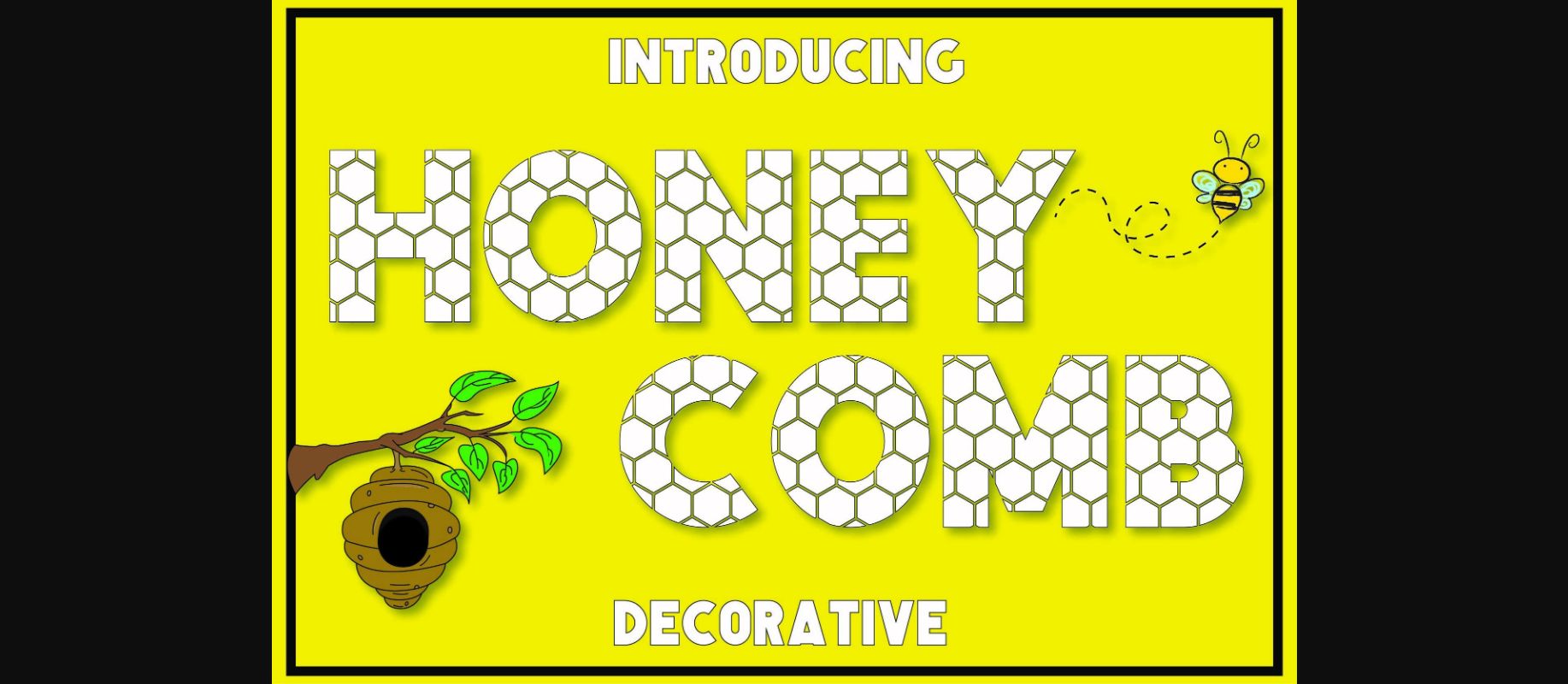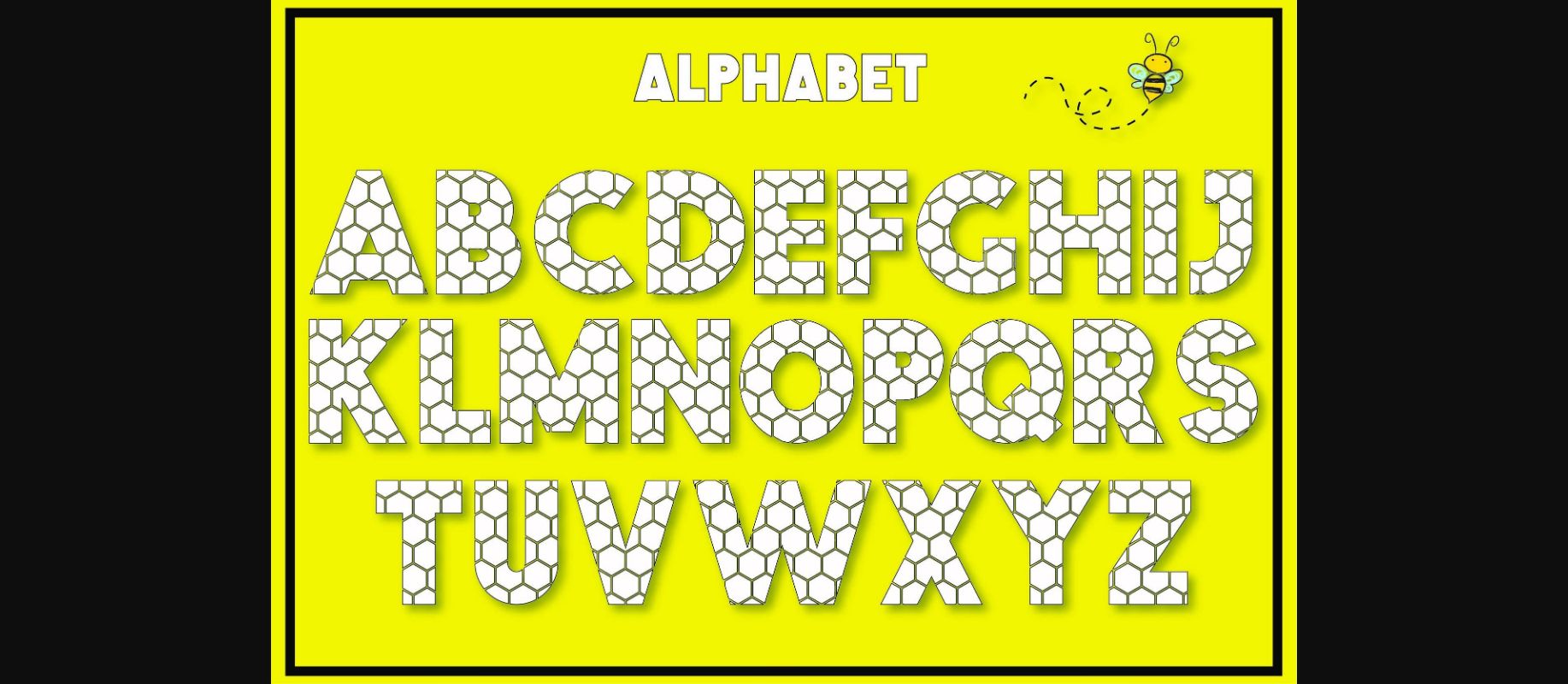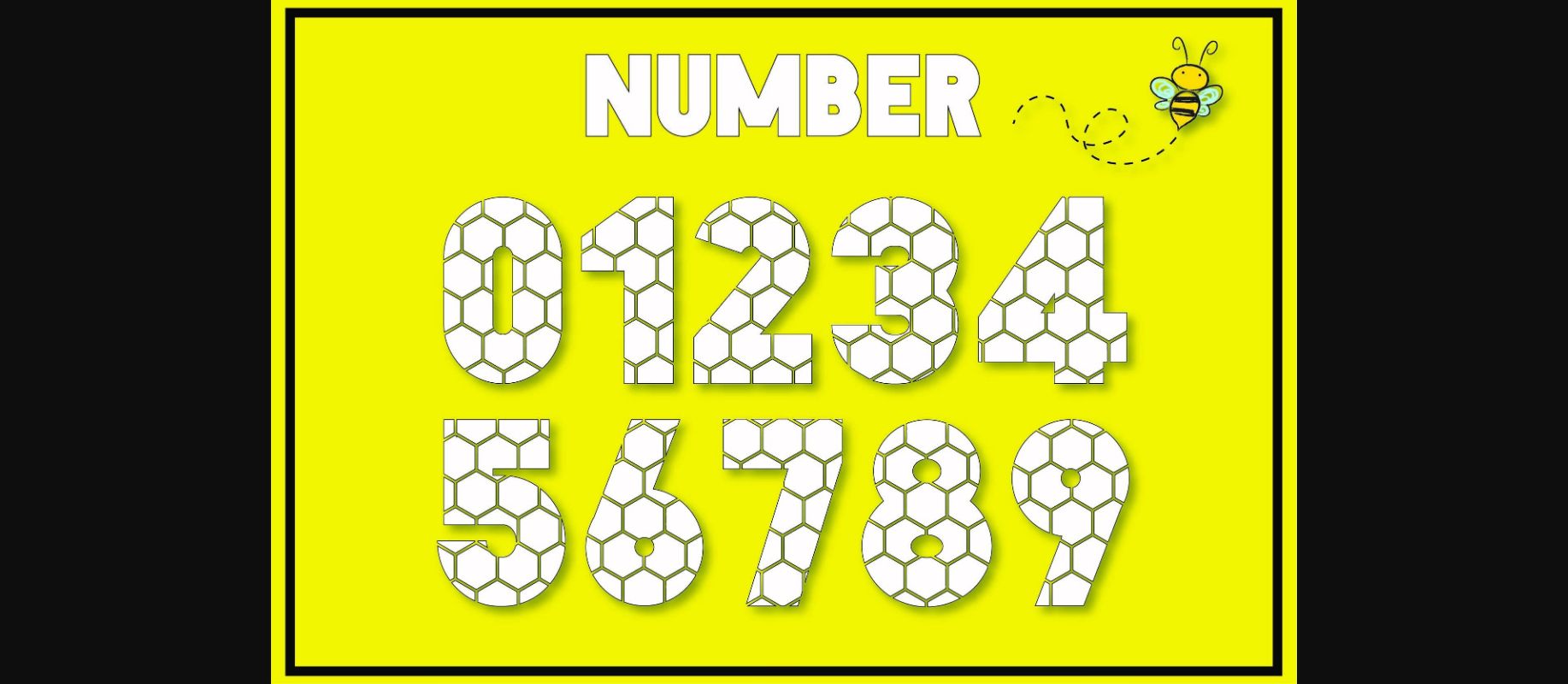
Honeycomb is an adorable and playful decorative font perfect for creative and lovely ideas. Fall in love with its sweet vibe and add it to your favorite projects!